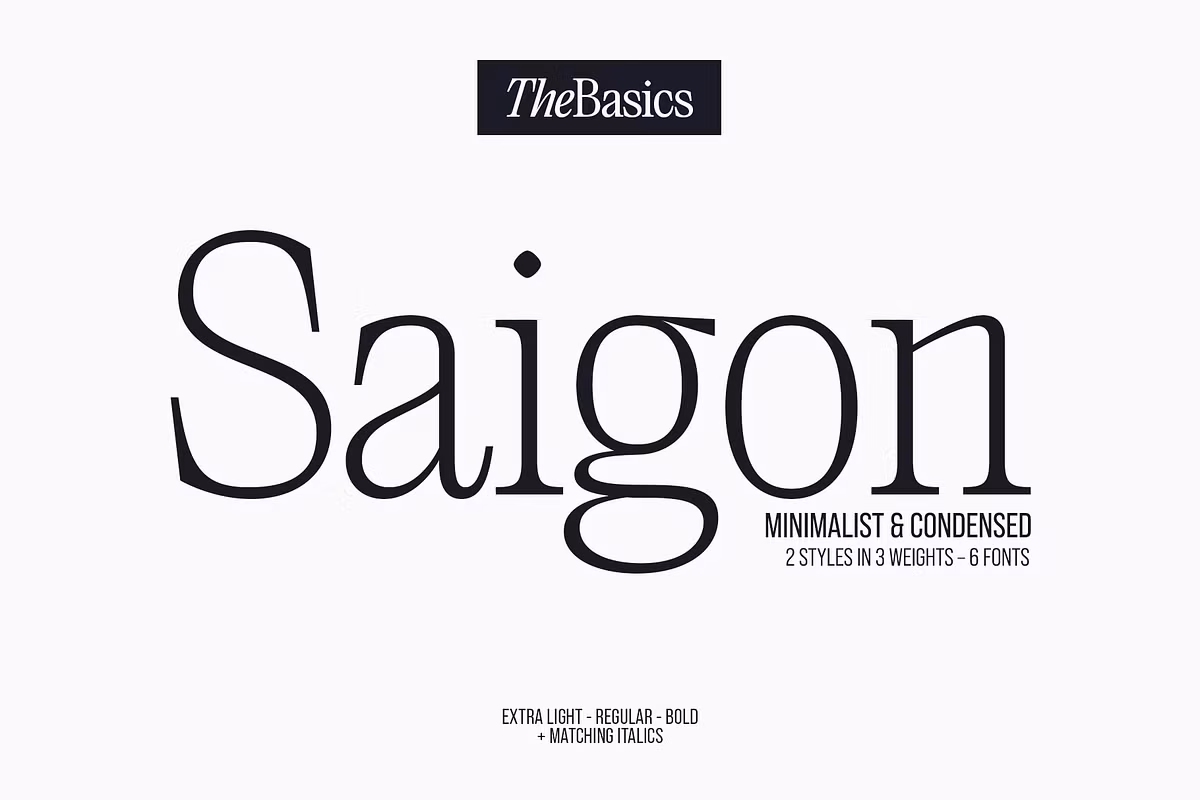
Saigon Minimalist Serif - Basic Pack Free Download
Saigon Minimalist Serif Font - Basic Pack Free Download is a sleek and modern serif typeface that blends classic structure with a minimalist edge. Perfect for branding, editorial design, packaging, and websites, this font brings clean sophistication to your creative projects. Please note that you must purchase this font for commercial use, but it is available as a free download for testing purposes. Whether you're designing a stylish logo or an elegant magazine spread, Saigon Minimalist Serif Font - Basic Pack Free Download offers the perfect balance of readability and refined design.